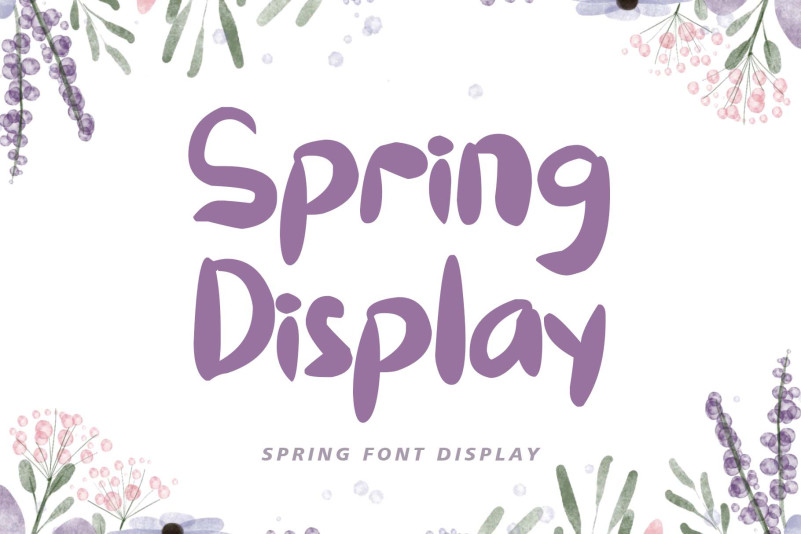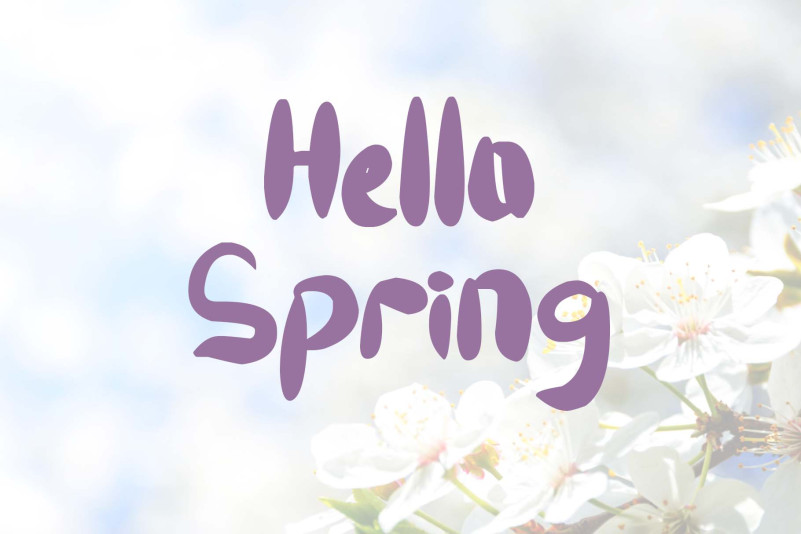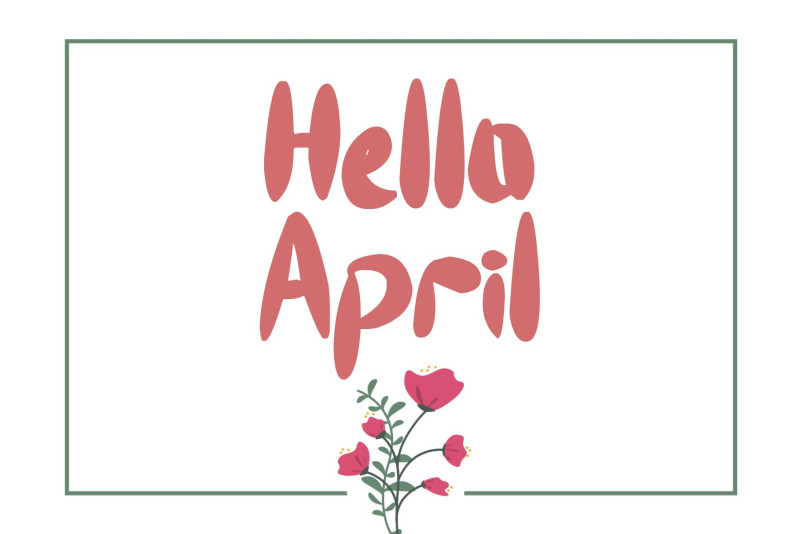
Spring Display Font
Spring Display Font is an exquisite and stylish display font that adds a touch of elegance to any design project. This font features refined and sleek letterforms with a sophisticated and modern feel. Perfect for creating high-end branding, packaging, or any project that requires a touch of luxury and style. Elevate your designs with this chic and elegant font.